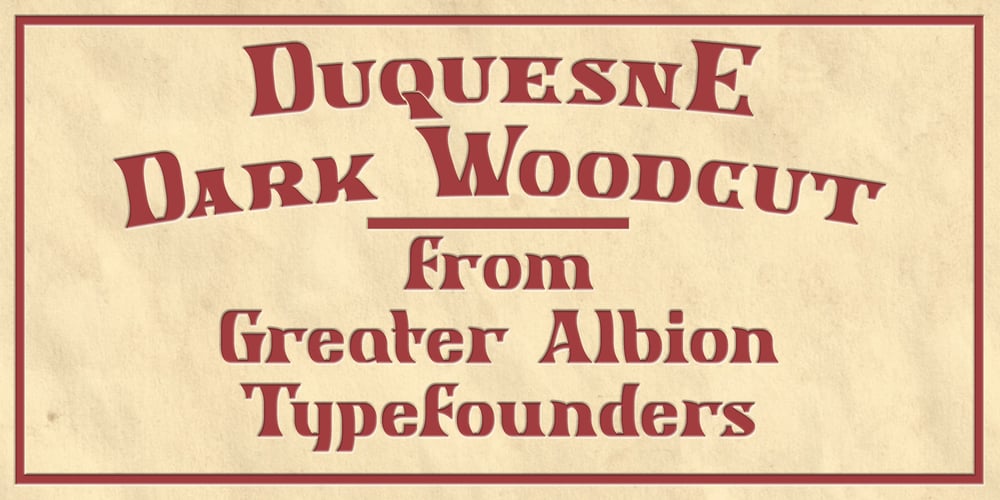
Duquesne Dark Woodcut
Duquesne Dark Woodcut font
Duquesne Dark Woodcut Font Family was designed by Paul James Lloyd and published by Greater Albion Typefounders. Duquesne Dark Woodcut contains 1 styles and family package options. Duquesne Dark Woodcut is a new typeface in the spirit of 19th century American wood cut typefaces. There is an almost rustic simplicity to its heavily serifed letter forms, ideal for capturing the spirit of the mid-west, or early Victorian Britain. Long live the era of the Cowboy and the Steam Navigation Canal!